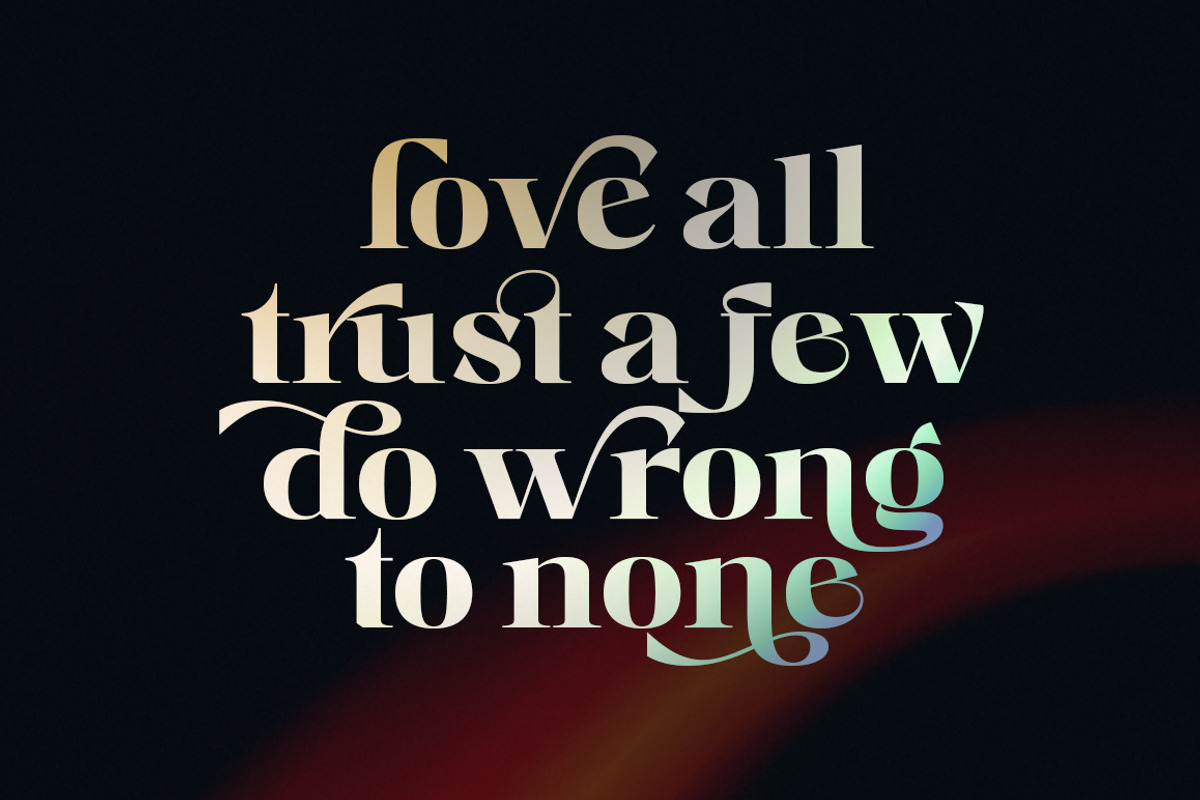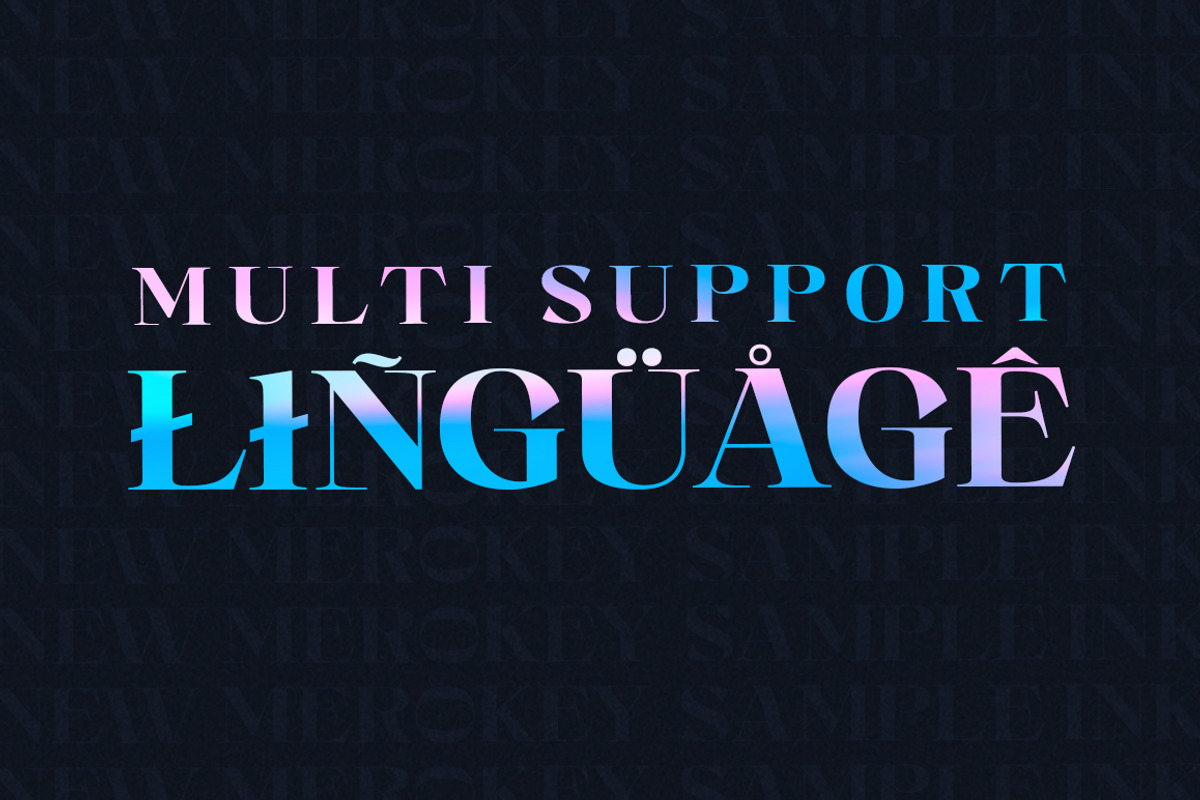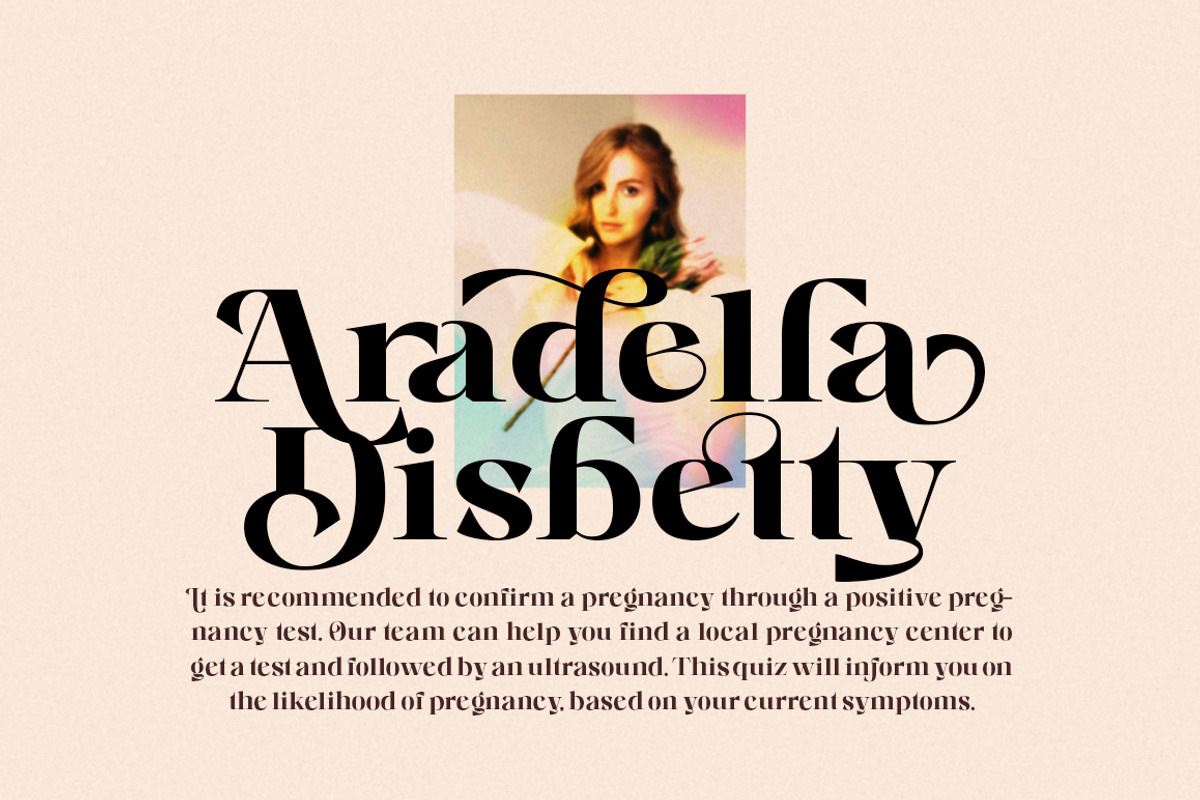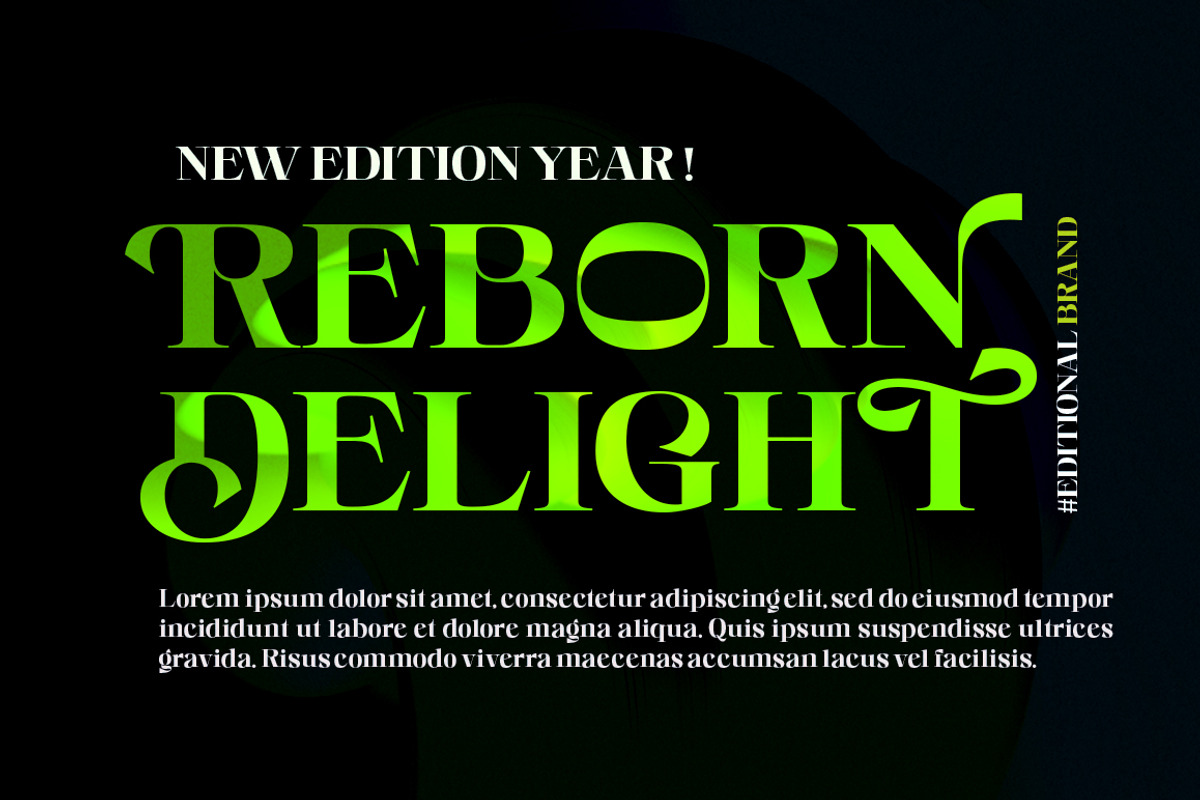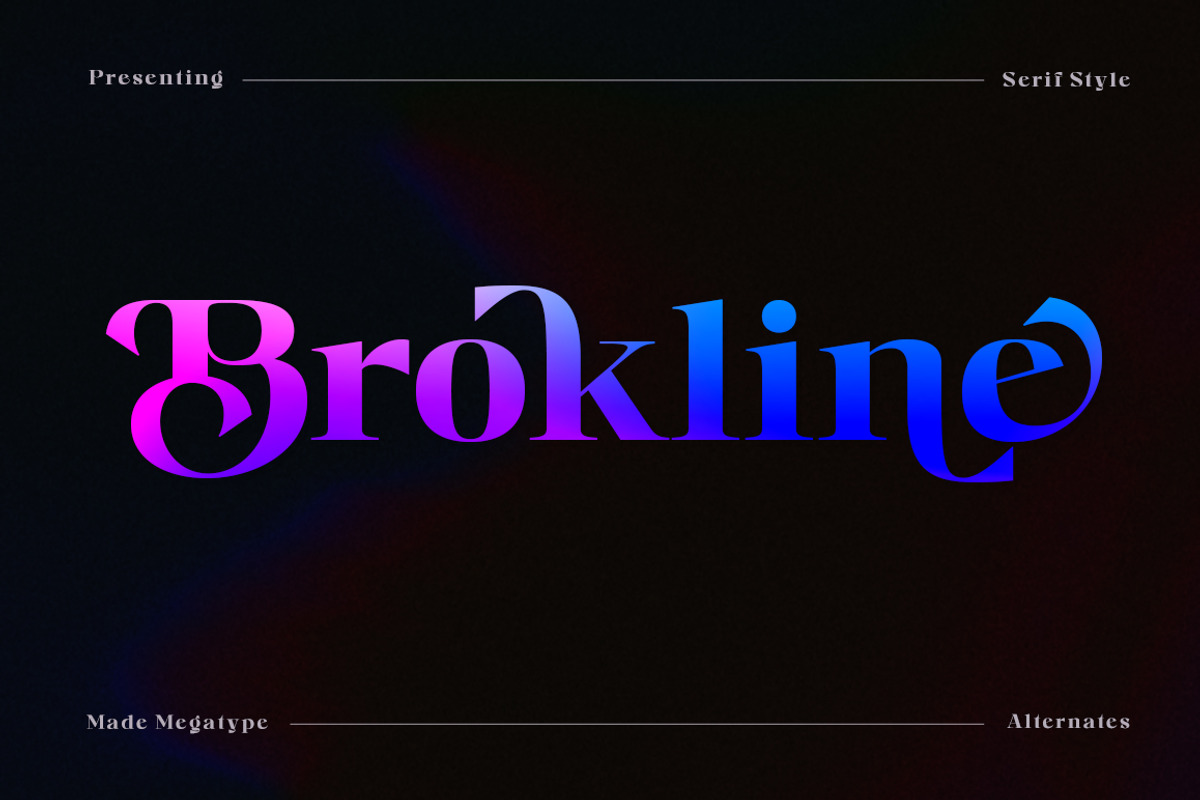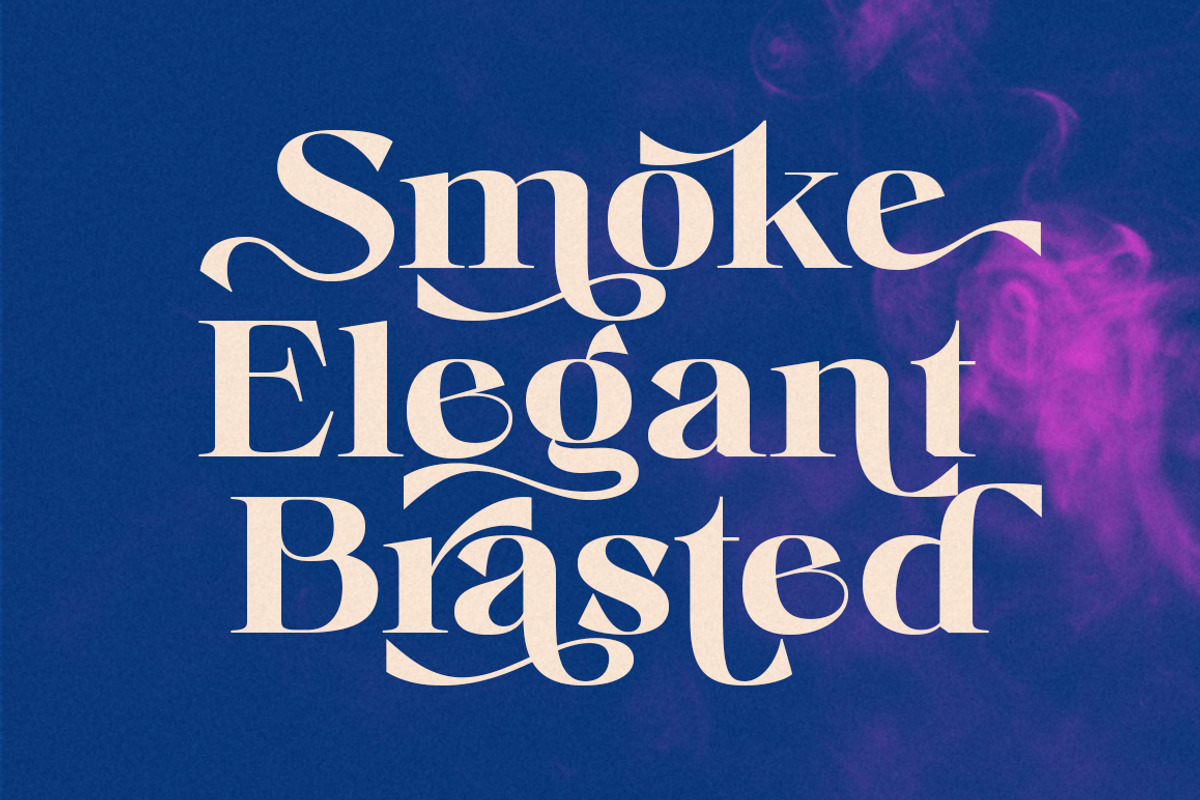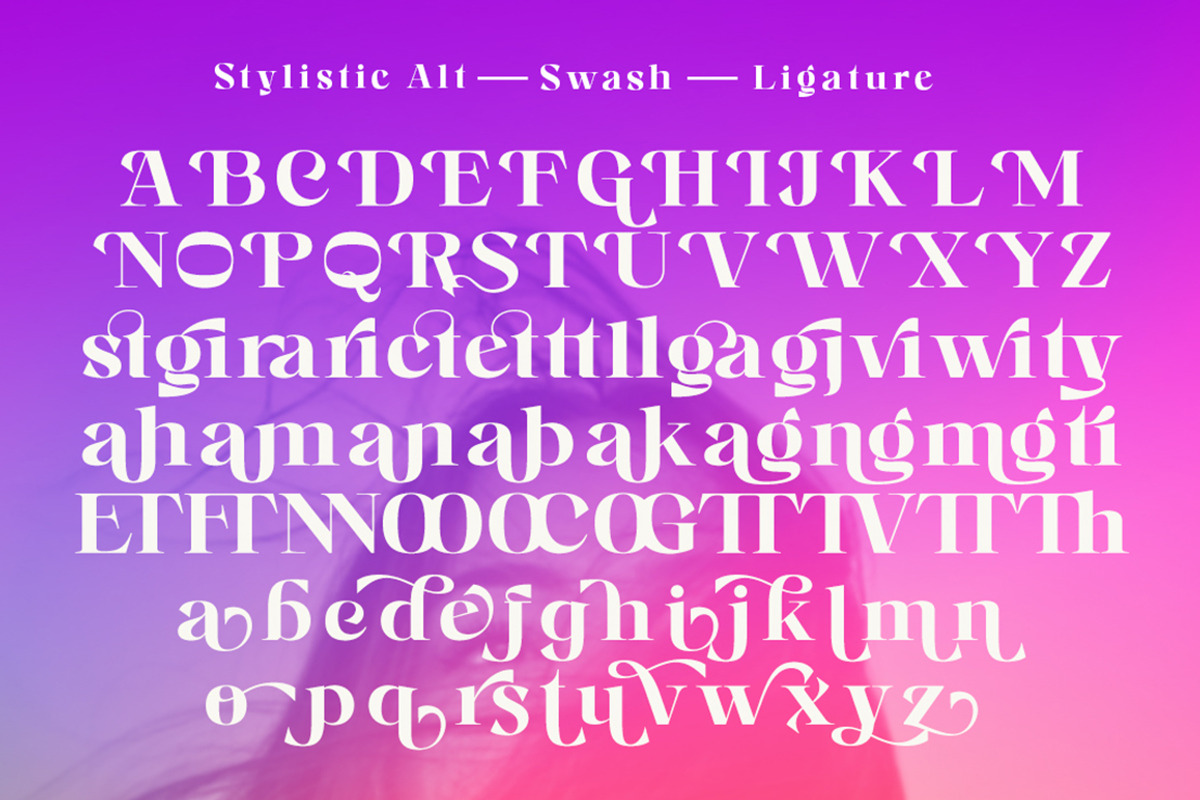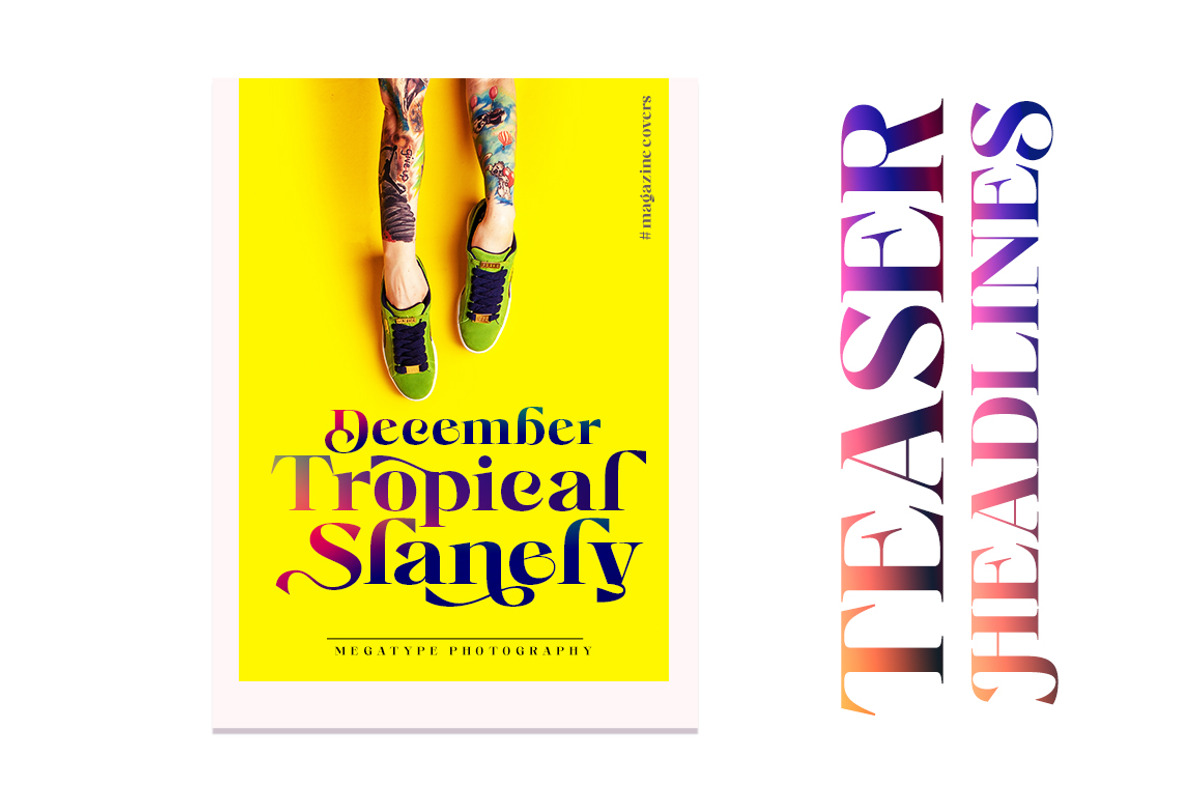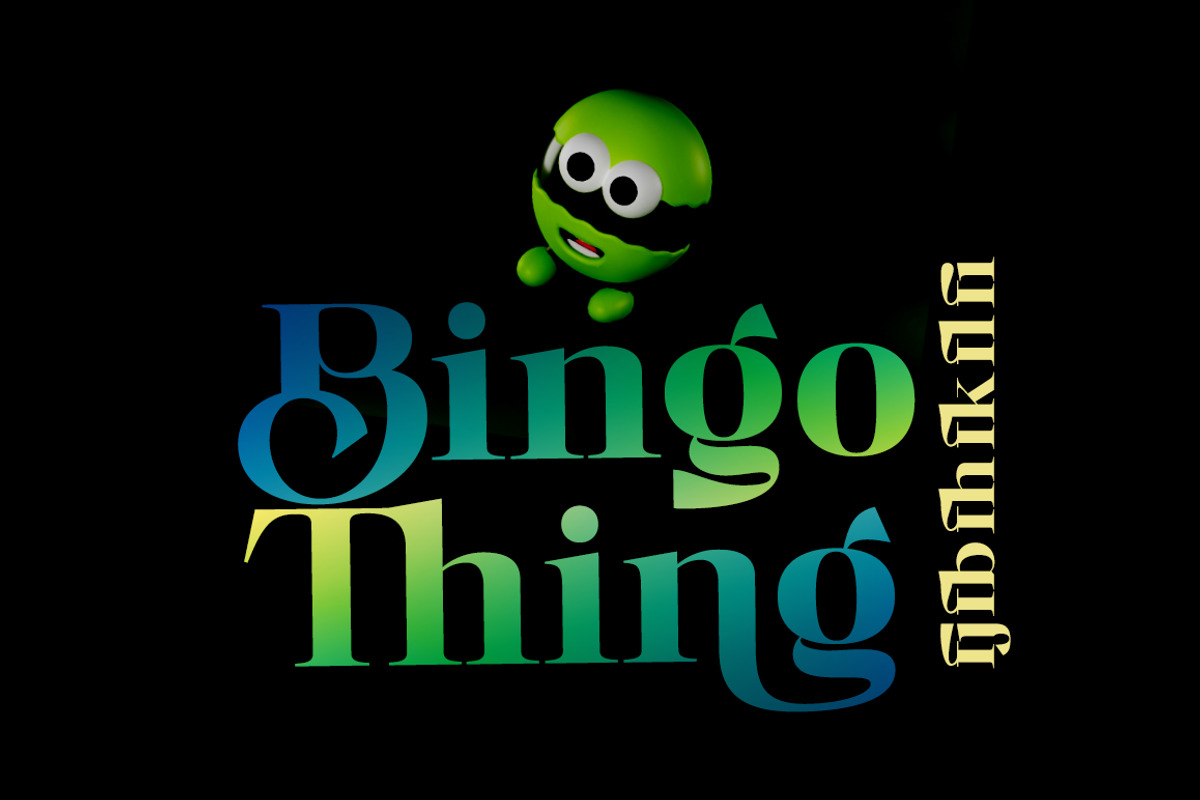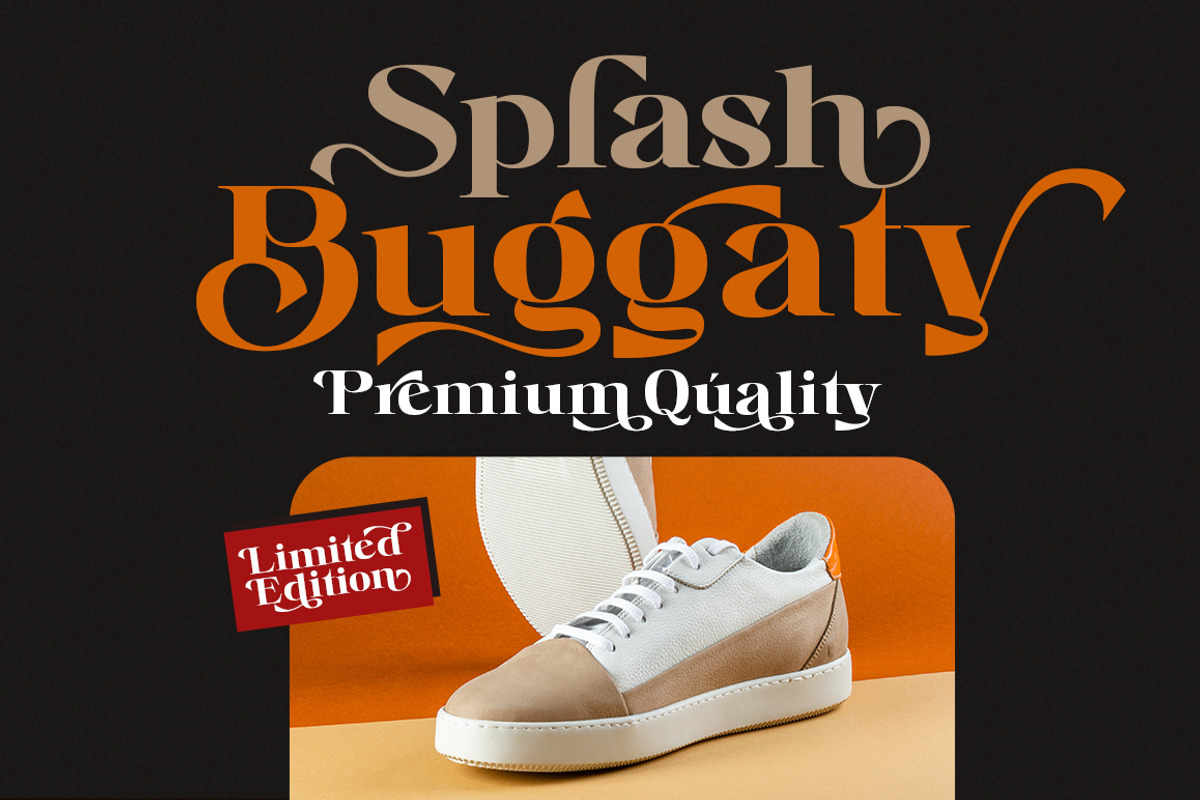
Brokline Serif Typeface
INTRODUCING
Brokline - Serif Display Font.
Brokline is a Serif Display Font with a modern, classy, fun, unique and versatile style. Looks great at display size and easy to read at text size. This font also has many unique alternatives and ligatures (500+ glyphs) that will make for amazing design projects.
Brokline Serif Display Font works well for branding projects, logos, television shows, movie titles, wedding designs, social media posts, advertising, product packaging, product design, labels, photography, watermarks, invitations, special events or anything else required to create a theme.
Brokline is built with OpenType features and includes initial and final language styles, alternative characters for uppercase and lowercase letters, numbers, punctuation, alternatives, endings, and also supports other languages.